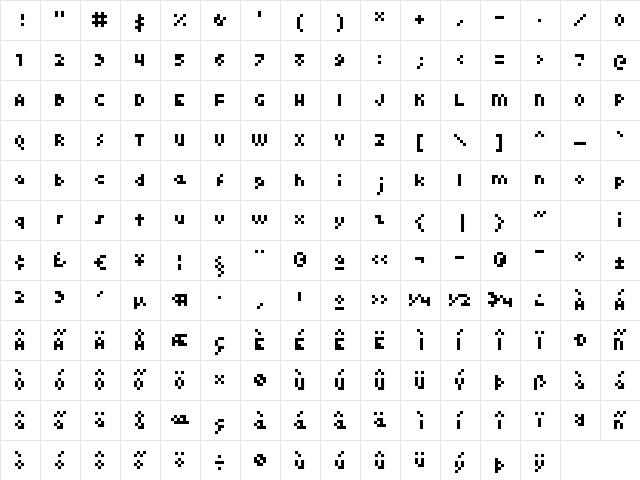
kroeger 04_55 Regular
| Foundry | Adobe Systems Incorporated |
| Designer | Craig Kroeger |
Design Context for kroeger 04_55 Typeface
kroeger 04_55 takes a measured approach to typography — its balanced proportions and neutral character make it a reliable workhorse for both digital and print work.